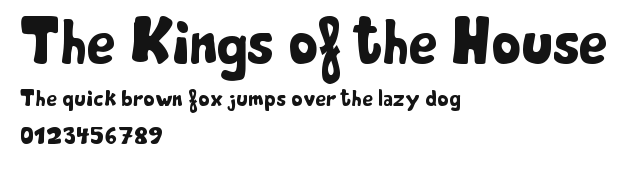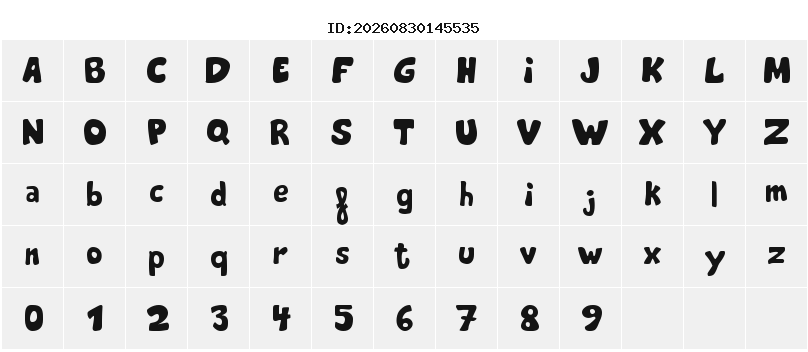
• Font Name: The Kings of the House
• Full Font Name: The Kings of the House
About The Kings of the House.ttf
The Kings of the House.ttf is a modern, elegant sans-serif font designed for ultimate readability and visual harmony. Perfect for branding, headlines, web design, and print materials.